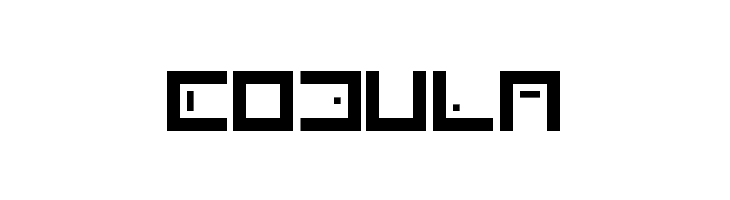
• Xenois Regular
( Nicolas Vincent-Vivian - www.themrtutofacile.wix.com/themrtutofacile )
A futuristic, geometric font with blocky, angular letterforms.